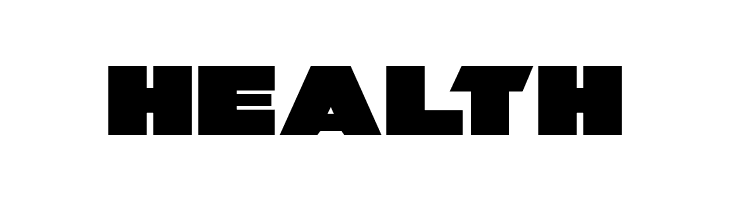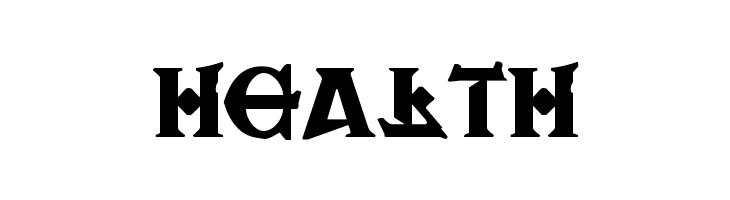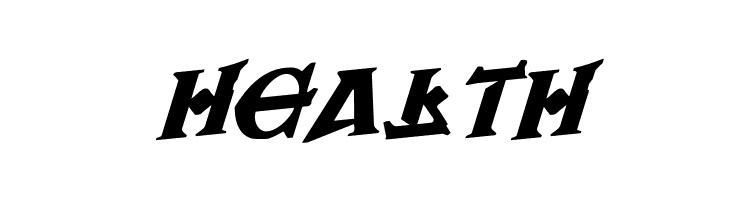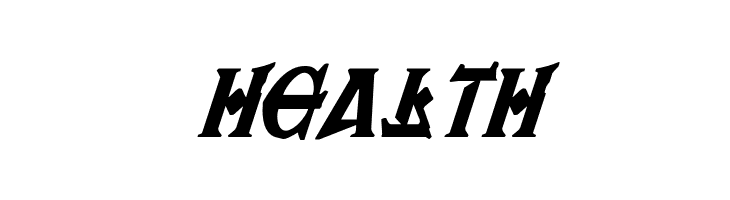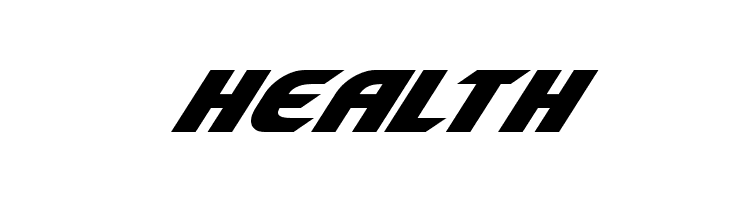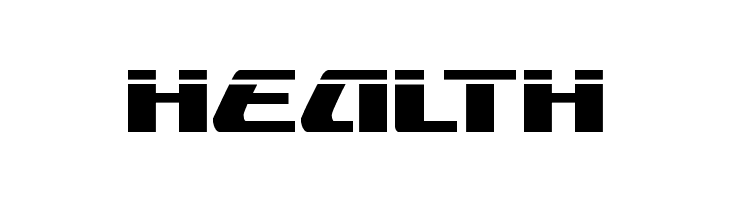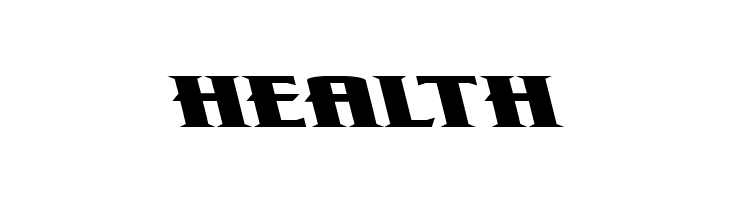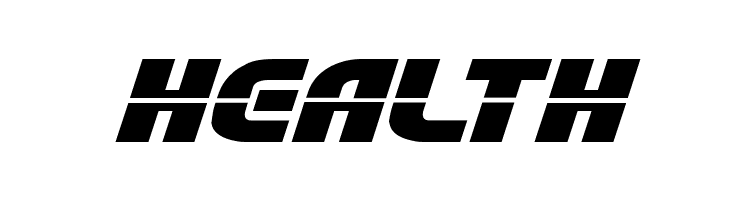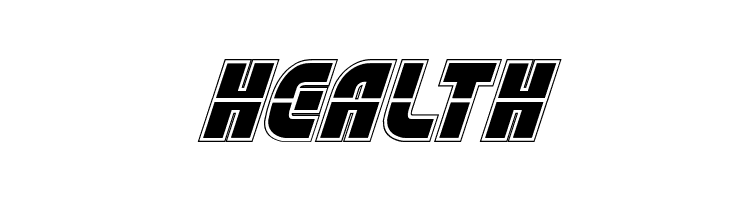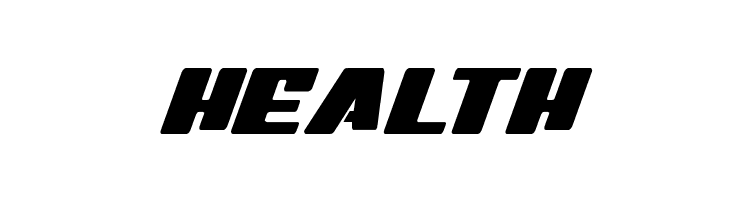
A bold, angular font with a futuristic, military-inspired design.
A bold, medieval-inspired font with sharp angles and strong serifs.
A bold, angular font with a dynamic slant and medieval flair.
A bold, condensed italic font with high contrast and dynamic style.
A bold, italic, and expanded font with a modern and dynamic style.
A bold, futuristic font with angular, geometric shapes and a stencil-like design.
A bold, left-slanted, and highly stylized decorative font with an expanded width.
A bold, futuristic font with geometric shapes and italicized slant.
A bold, italicized, futuristic font with geometric elements.
A bold, dynamic font with a slanted, energetic style.